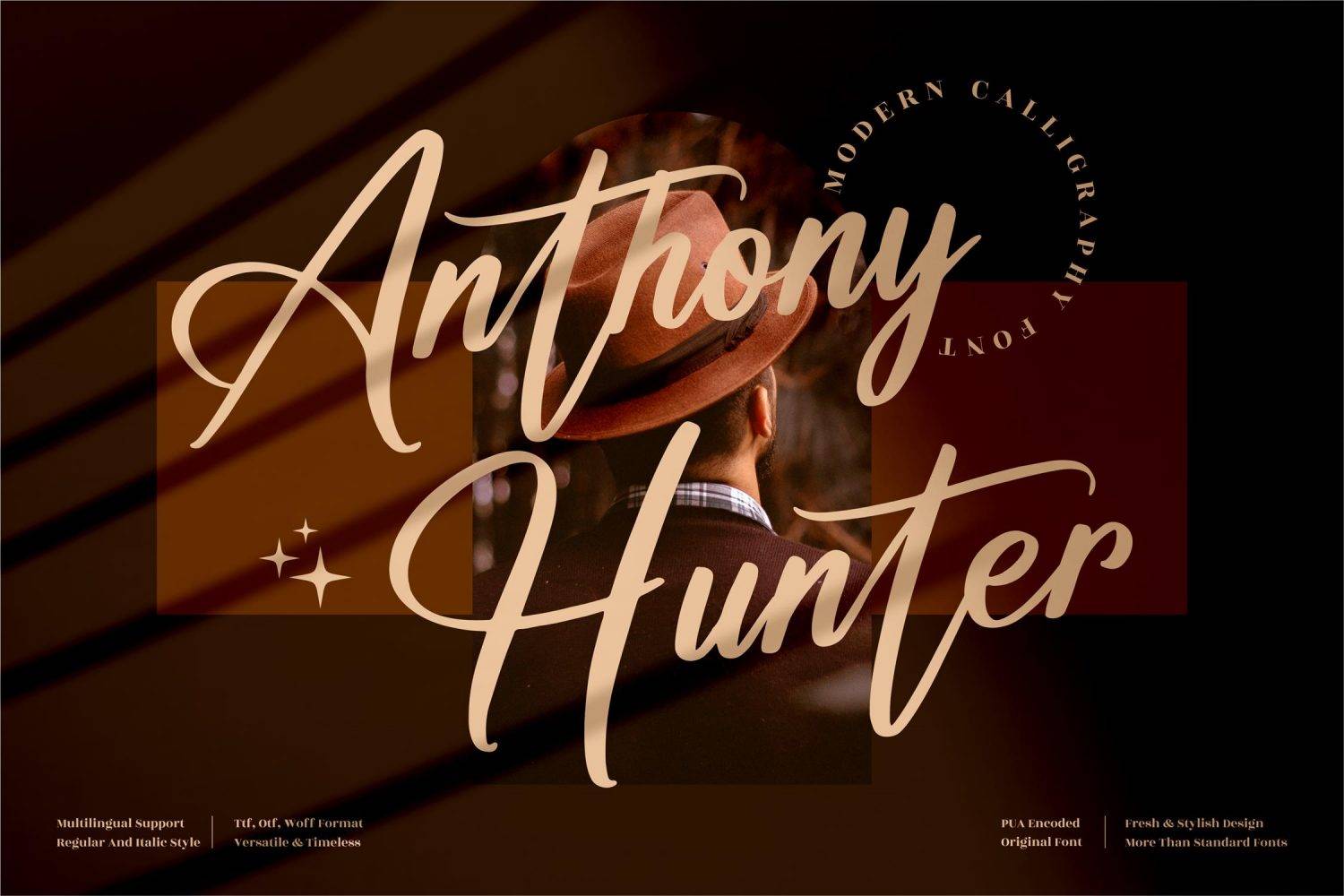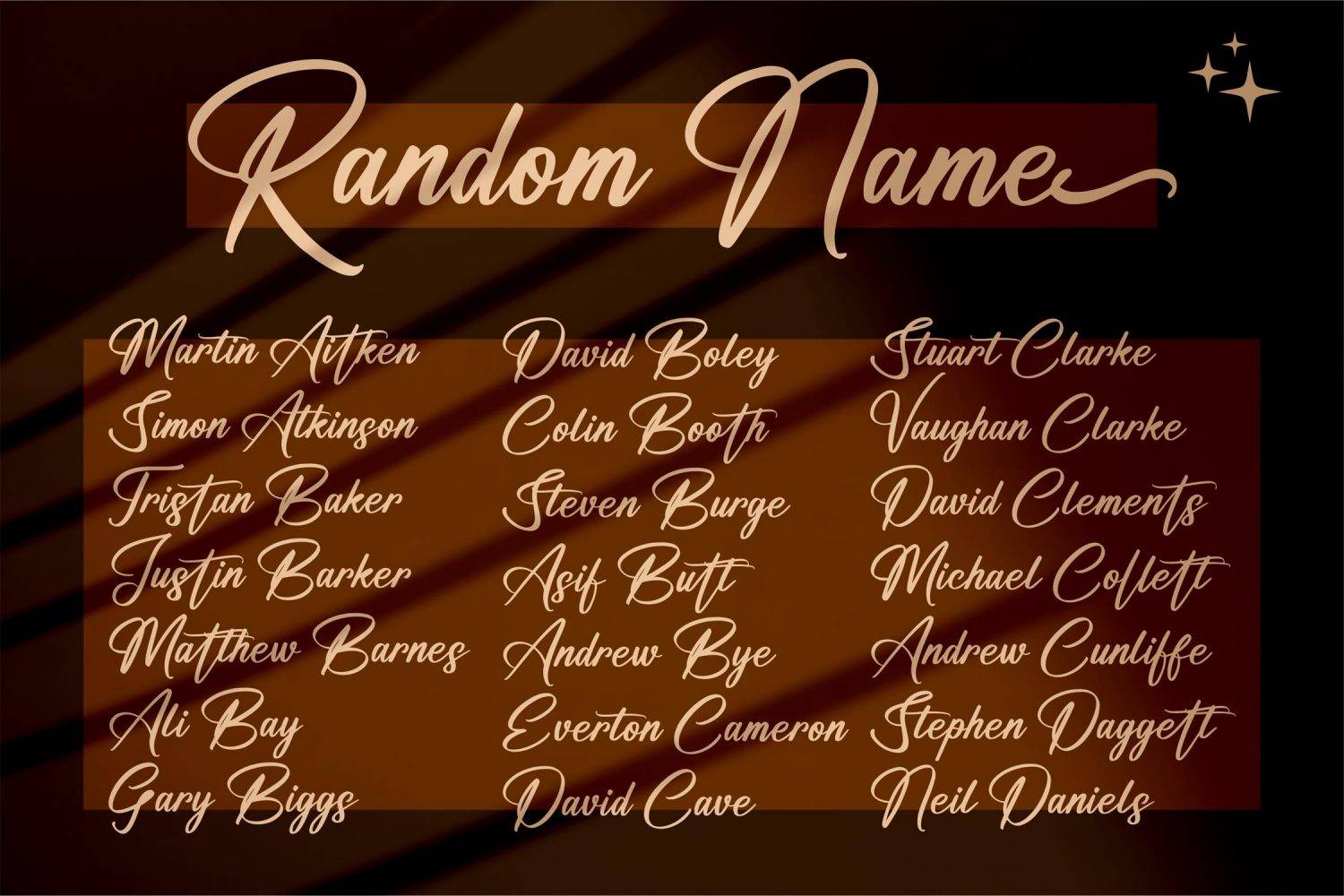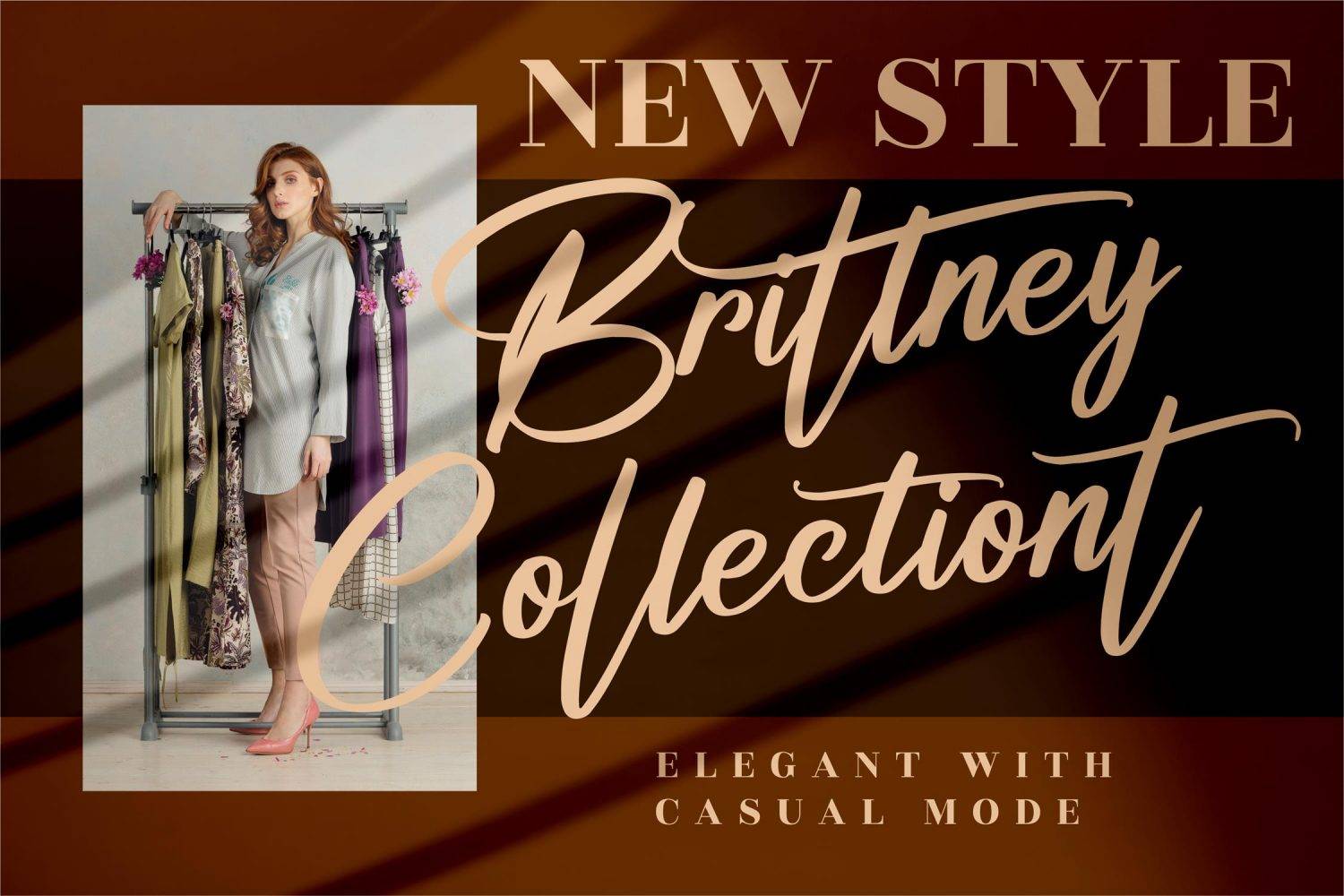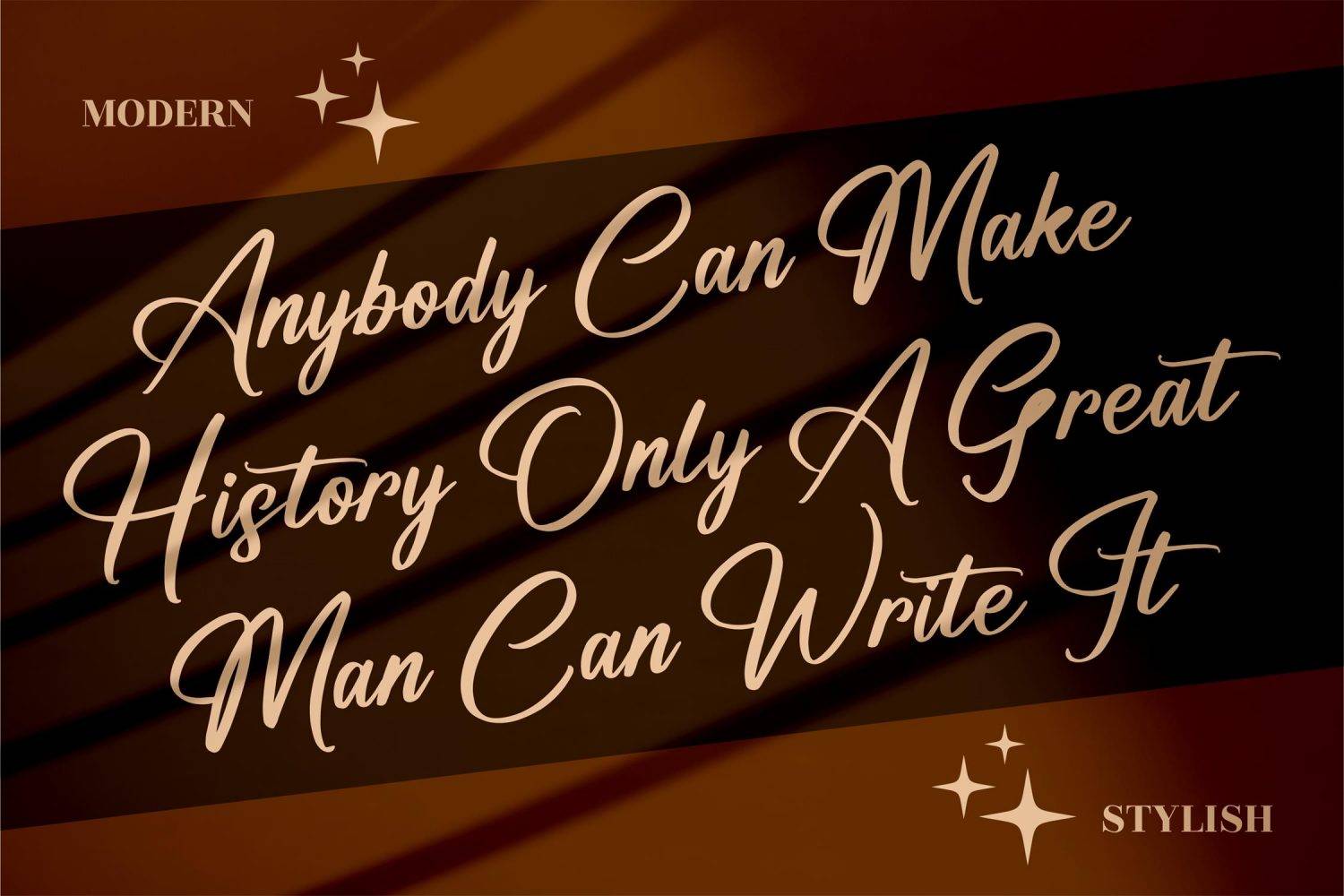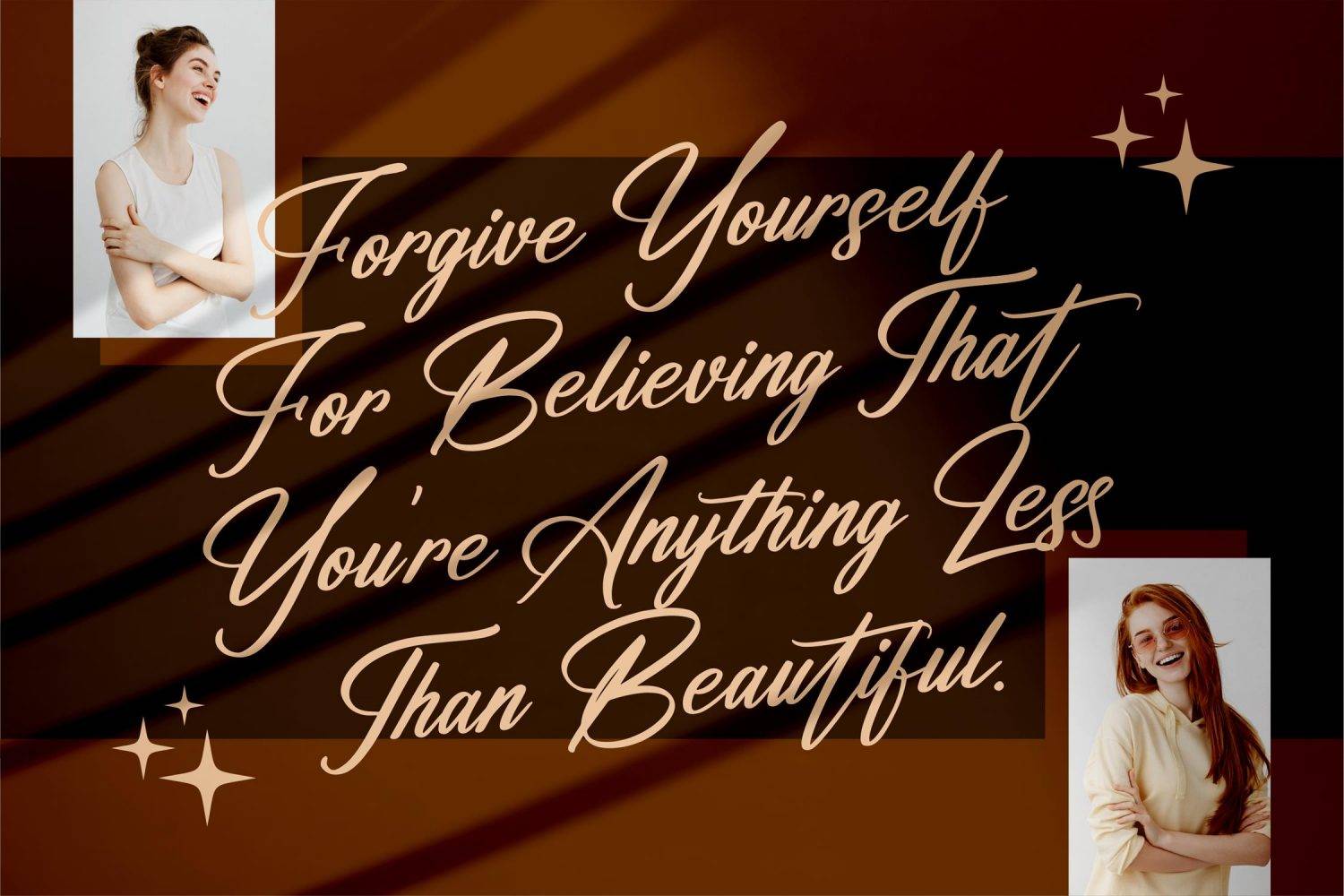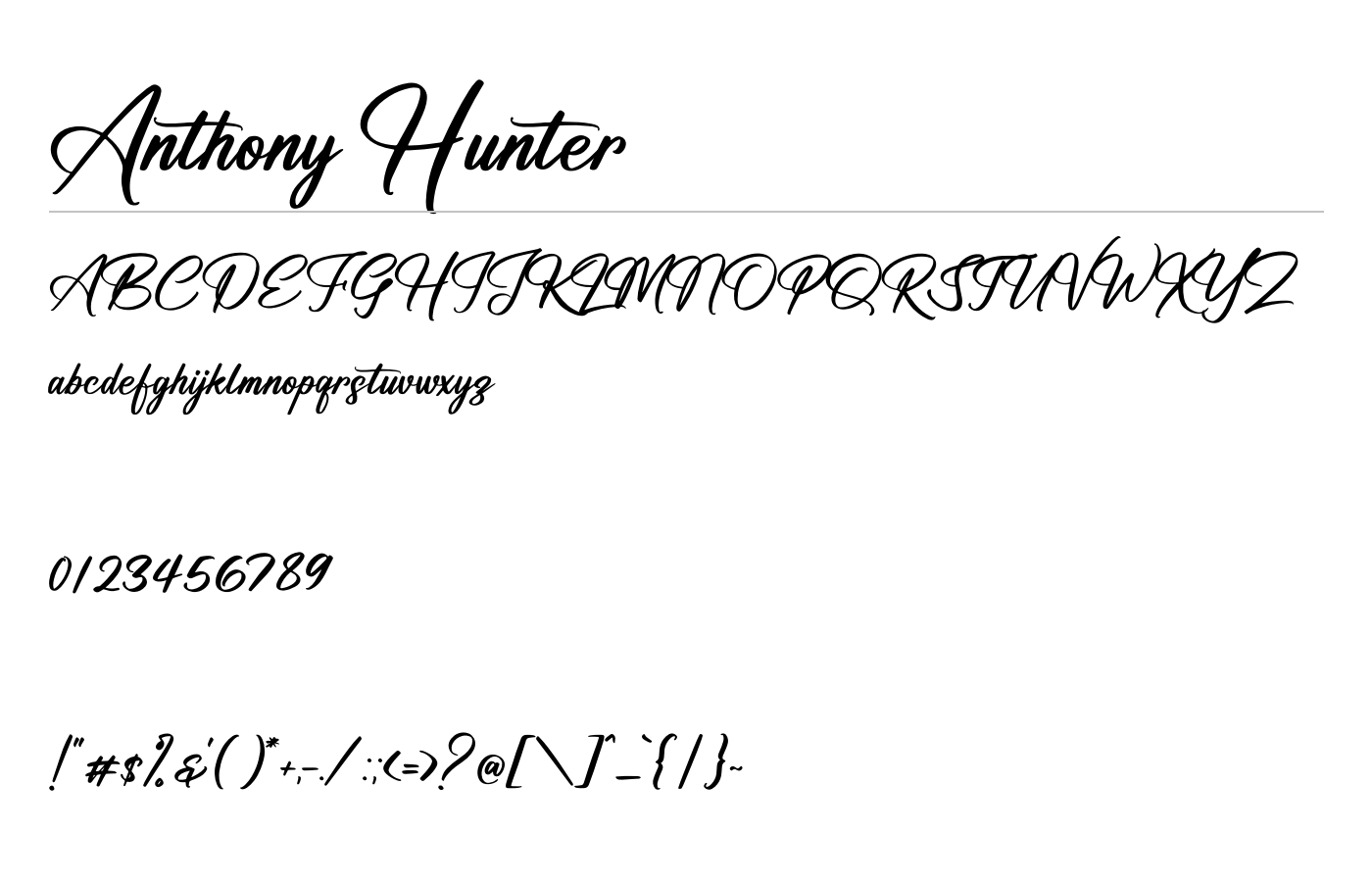
Anthony Hunter is an elegant script font featuring flowing, connected strokes that create a refined and sophisticated look. Its smooth, slightly bold characters with a handwritten style make it perfect for luxury branding, invitations, and stylish logos where a personal yet polished touch is desired. This font shines in designs that need a blend of classic charm and modern flair, especially in creative and upscale contexts.